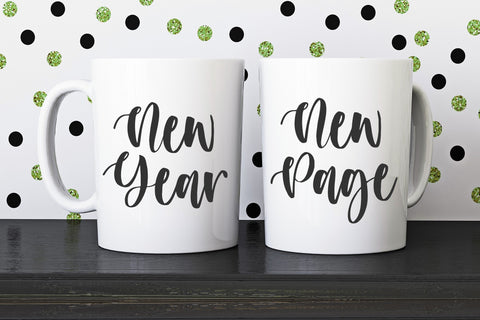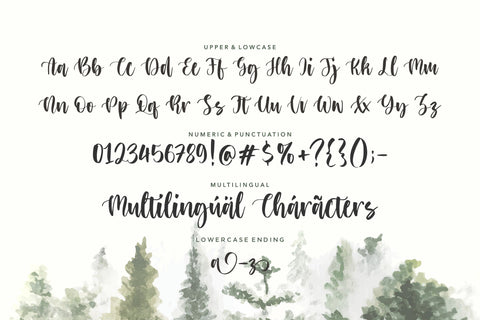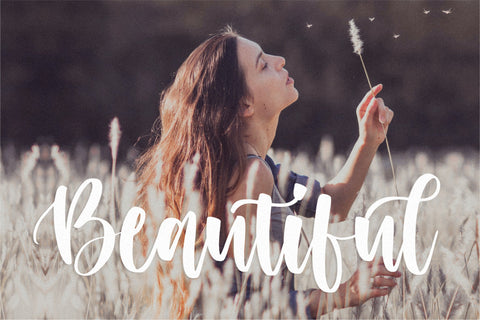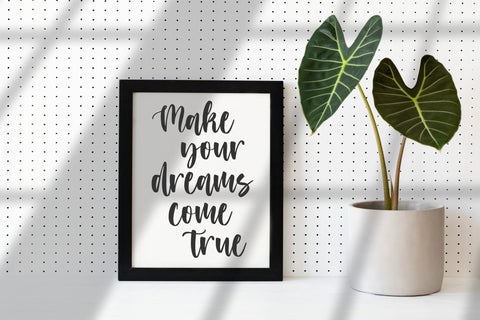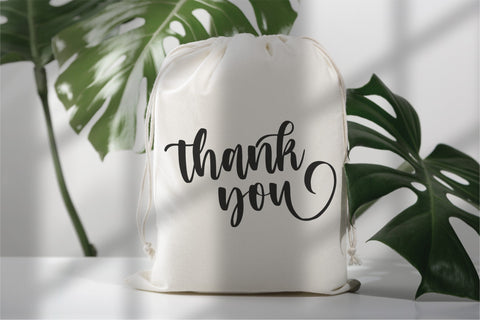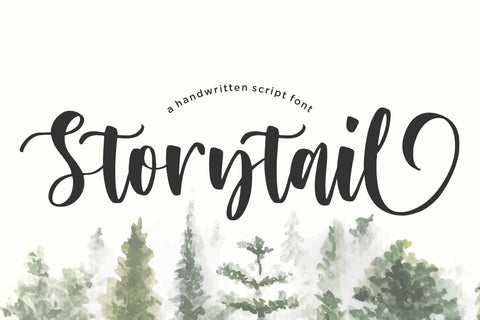
Storytail Handwritten Script Font
Storytail is a Handwritten Script Font.
Storytail is a stylish and delicate script font. This font is PUA encoded which means you can access all of the glyphs and swashes with ease!
This font includes
- Lowercase Ending Swash